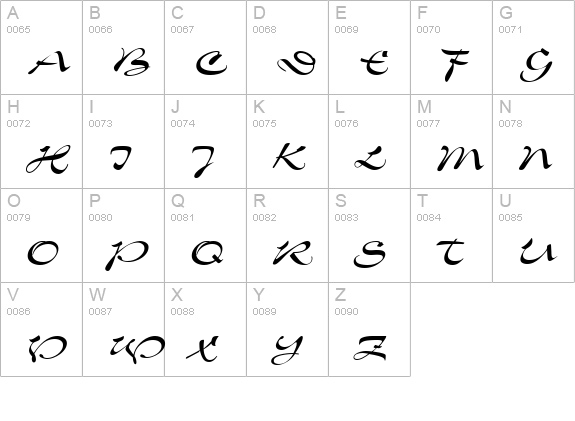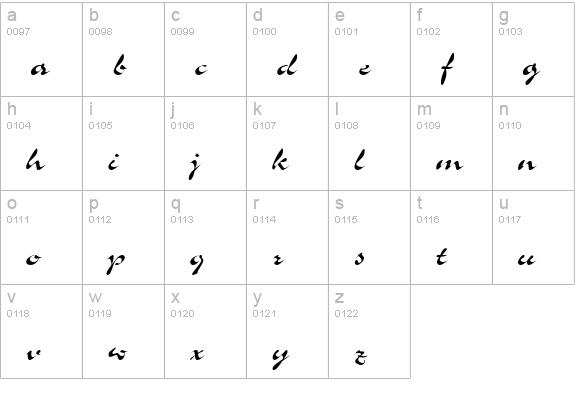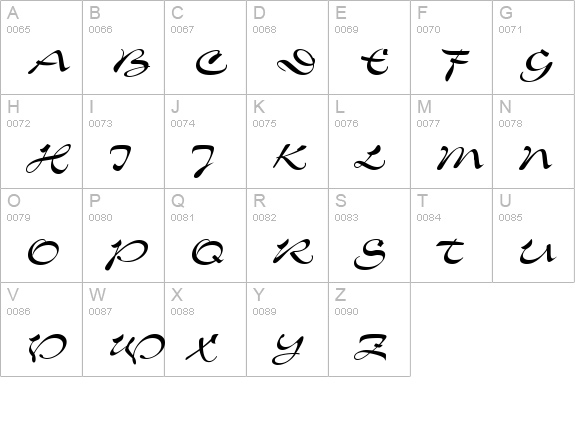
Slogan Normal Font Details
Slogan Normal is the standard, neutral variant in the Slogan typeface family \xE2\x80\x94 well suited to general body text, paragraphs, and standard typographic work.
Introducing Slogan Normal font, a versatile and eye-catching typeface that will bring your designs to life. This font is the perfect balance between modernity and elegance, making it suitable for a wide range of projects, from branding and marketing materials to websites and print design. With its clean lines and smooth curves, Slogan Normal font exudes professionalism and sophistication. It effortlessly captures attention and leaves a lasting impression, ensuring that your message stands out from the crowd. What sets Slogan Normal font apart is not only its stunning aesthetics but also its accessibility. It is freely available to download at FontsMarket.com, allowing you to easily incorporate this beautiful font into your projects without any hassle. Whether you're a professional designer or an enthusiastic hobbyist, Slogan Normal font is here to elevate your creations. Furthermore, this font offers a wide range of characters, including uppercase and lowercase letters, numbers, punctuation marks, and special symbols. This versatility allows you to experiment with different styles and create unique designs that truly reflect your vision. Whether you're designing a logo, crafting a poster, or creating a website, Slogan Normal font is the perfect choice. Its timeless appeal and effortless legibility make it a reliable companion for all your design endeavors. So, why settle for ordinary when you can have extraordinary? Download Slogan Normal font today, for free, at FontsMarket.com, and unlock a world of endless possibilities for your design projects.